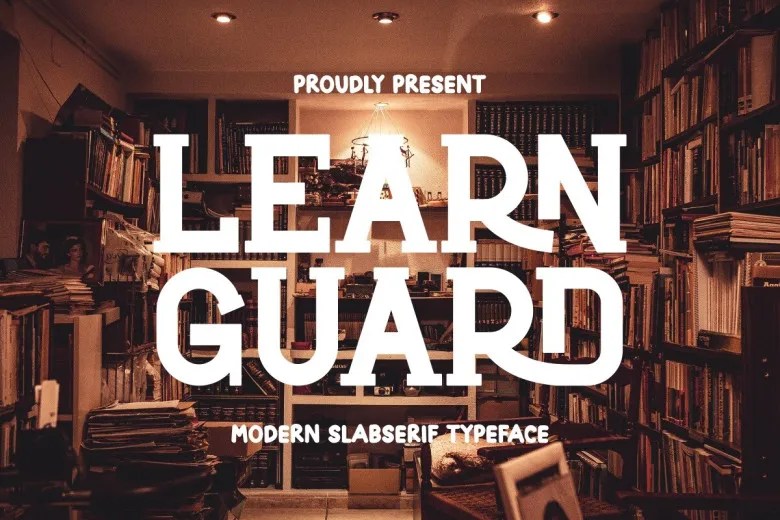
Learn Guard Font
Learn Guard is a sophisticated slab serif font that masterfully combines elegance and boldness. Its timeless design makes it ideal for creating stunning wedding invitations, exquisite stationery, and captivating social media posts. With its refined charm and unique character, Learn Guard adds a touch of sophistication to any project, making it an excellent choice for designers seeking versatility and style.
Whether you’re working on invitations, stationery items, or crafting visually appealing social posts, Learn Guard’s adaptability ensures exceptional results. Its balance of elegance and boldness allows it to complement a variety of themes, helping your designs stand out with a professional and polished look.